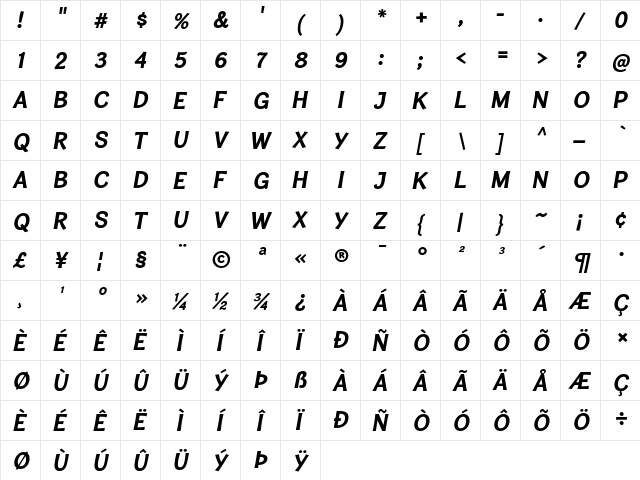
Cardigan Titling Bold Italic
Design Context for Cardigan Titling Typeface
Cardigan Titling is a composed and adaptable typeface that performs quietly and consistently across a wide range of design contexts. The slanted form adds forward momentum and visual energy. The heavy weight commands attention and anchors typographic hierarchies.
Pro Tip: Use Cardigan Titling for emphasis, pull quotes, and subheadings where its slanted energy can add rhythm to the layout.